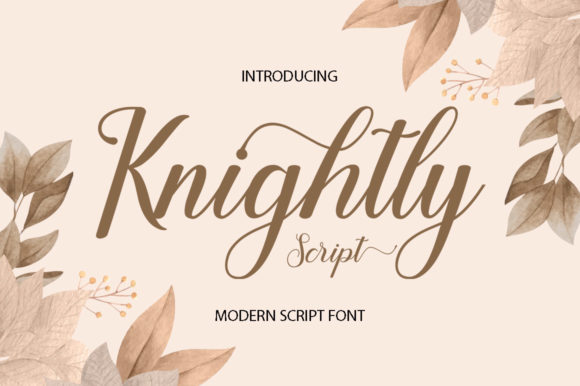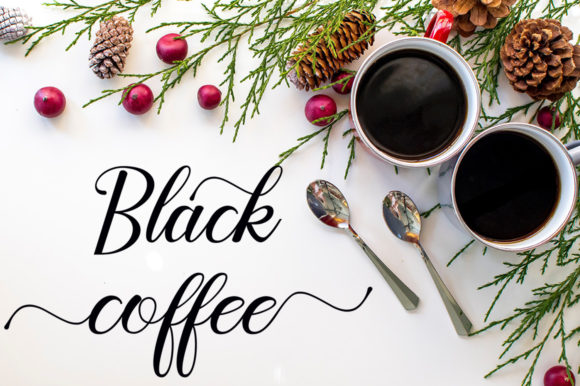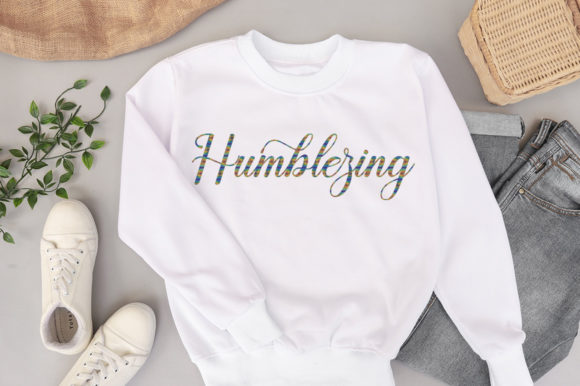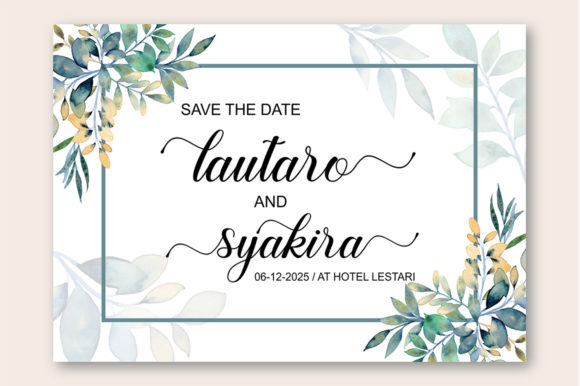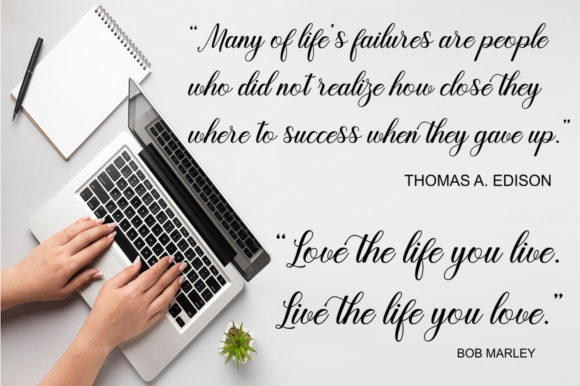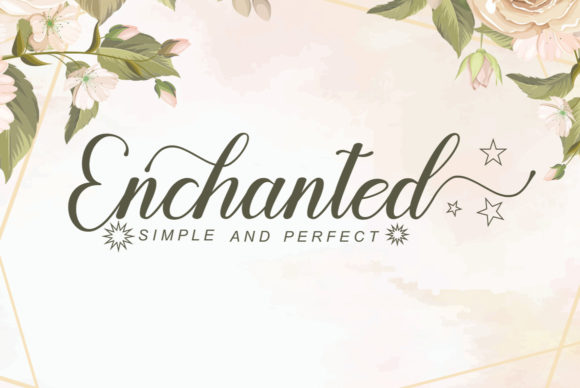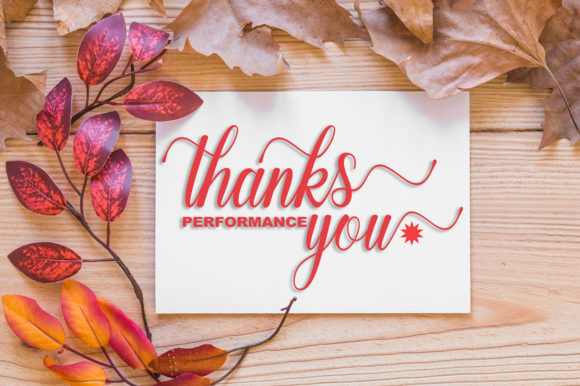
Knightly Script Font
About Knightly Script Font
Knightly Script is a stylish and beautiful script font. It is PUA encoded which means you can access all of the glyphs and swashes with ease